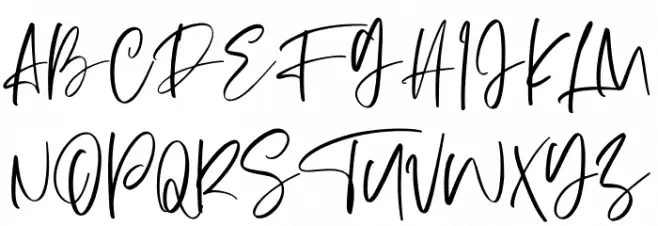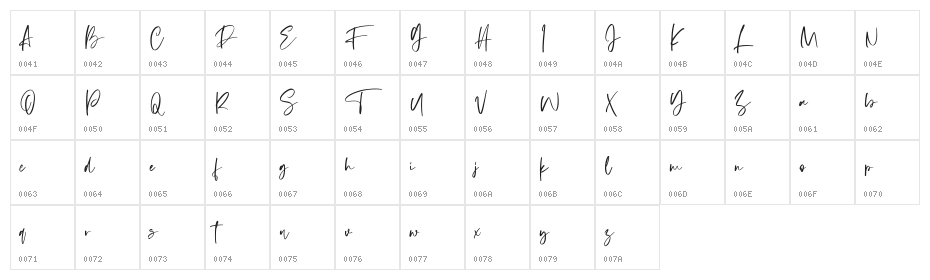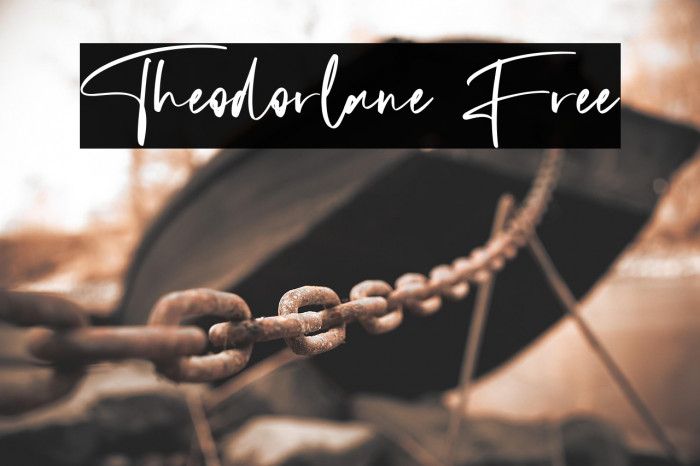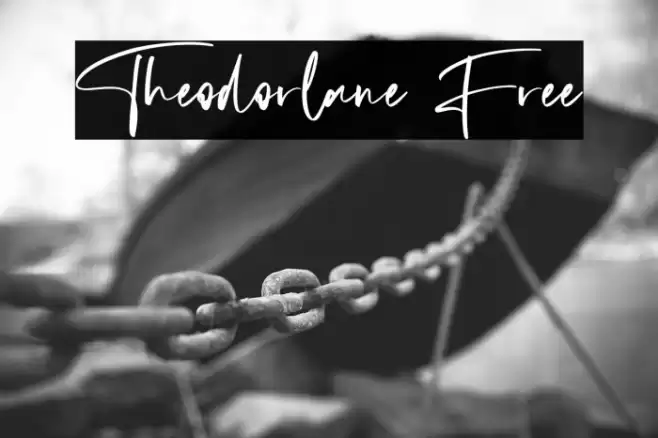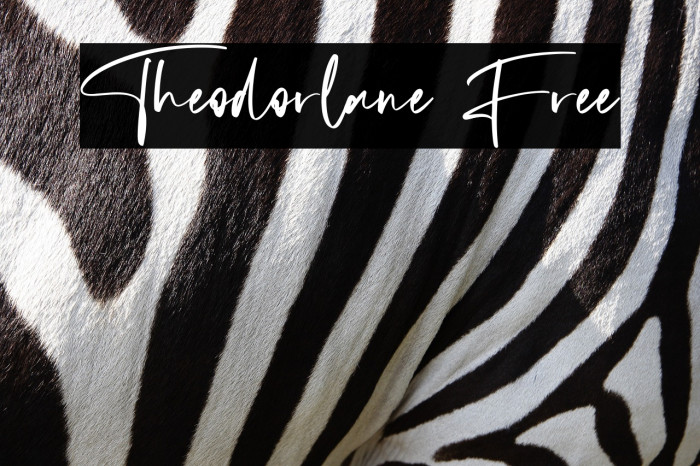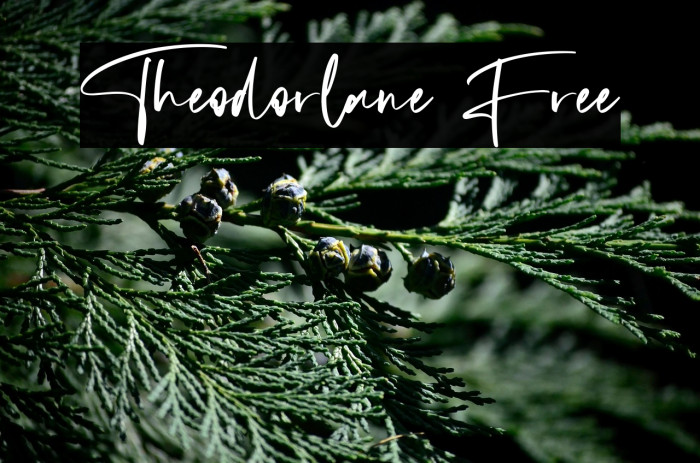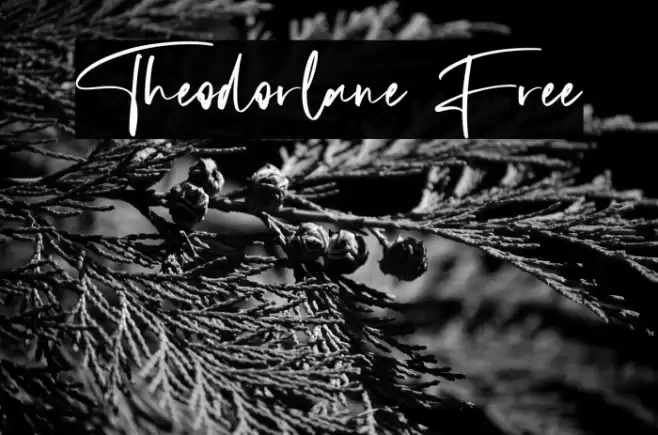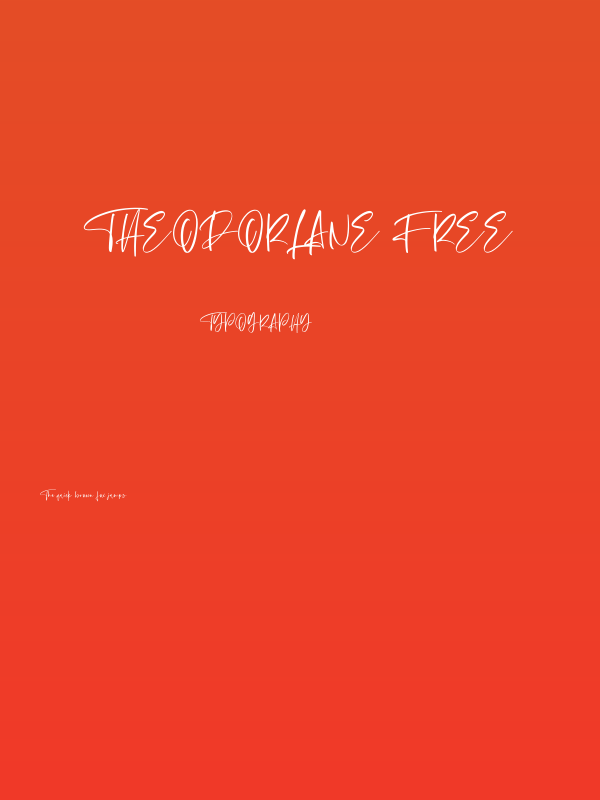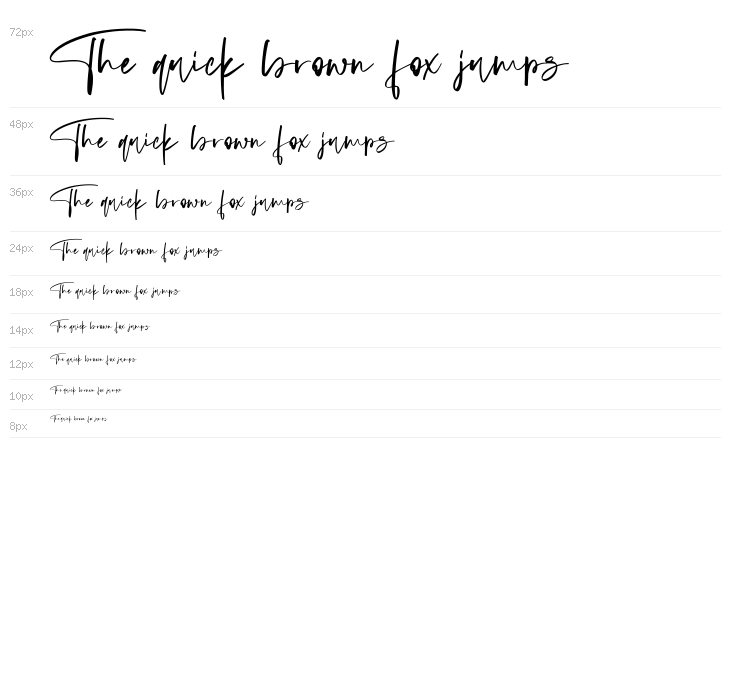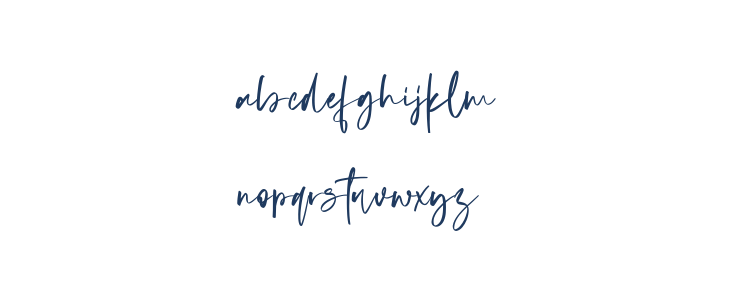
Theodorlane Free Font
Theodorlane Free Description
This font features a lively and expressive handwritten style, characterized by its flowing, cursive letterforms. The strokes are dynamic and varied, with a playful yet elegant appearance. The uppercase letters are bold and prominent, while the lowercase letters maintain a consistent fluidity, enhancing readability. The font's unique charm is evident in its sweeping curves and loops, giving it a personal and artistic touch. It is well-suited for creative projects that require a personal and informal feel, such as invitations, greeting cards, and branding materials.
| Proposed Projects | Ideal for invitations, greeting cards, branding, and creative projects requiring a personal touch. |